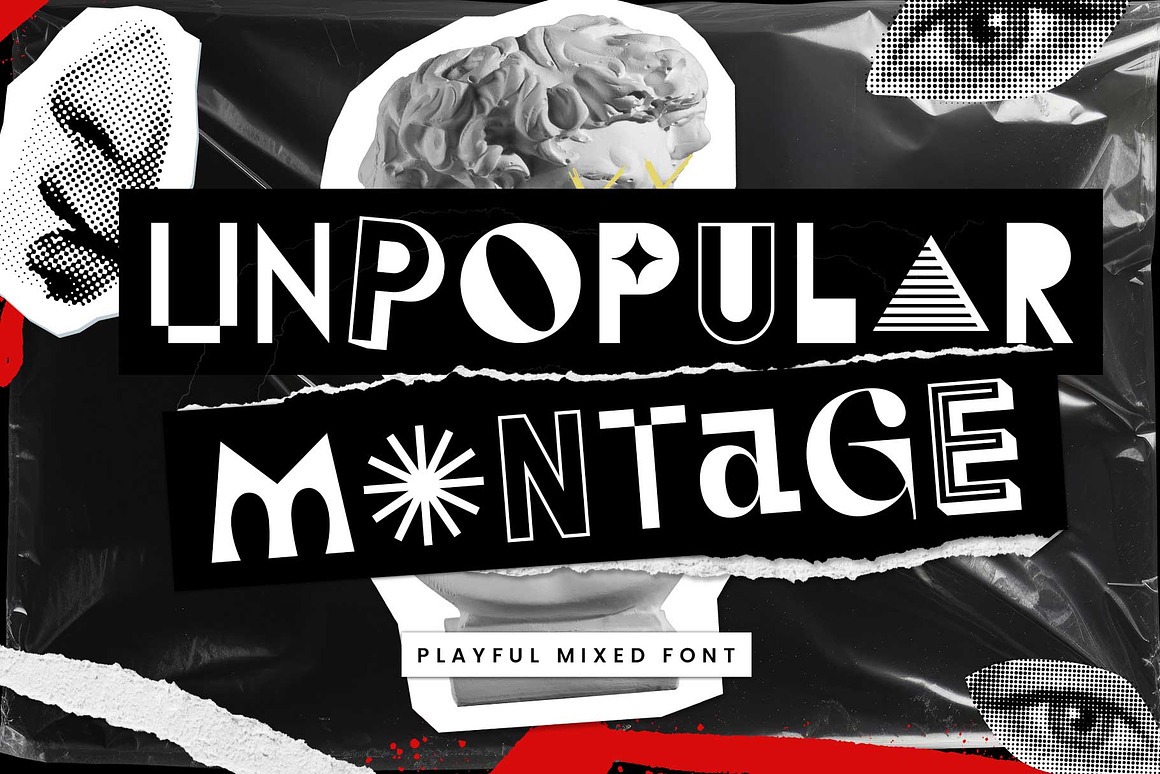
Unpopular Montage Font
About Unpopular Montage
Introducing “Unpopular Montage” — a rebellious mixed font born from modern collage art and retro experimentation.
A bold blend of shapes and moods — sans meets serif, geometric meets organic, creating a vibrant typographic fusion that feels both nostalgic and new. Every letter acts like a cut from different worlds, pieced together in perfect disharmony, a visual rebellion against uniformity.